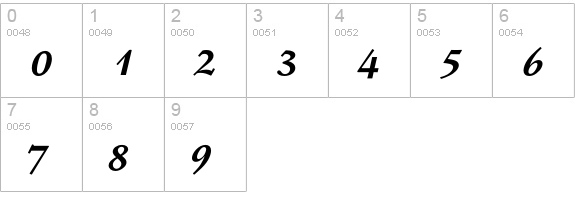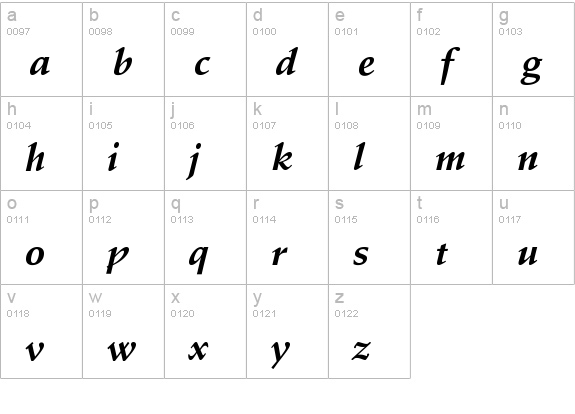
SchneidlerEF-BoldItalic Font Details
SchneidlerEF-BoldItalic is a stunning and bold typeface that exudes elegance and sophistication. With its distinct slanted design, this font adds a touch of creativity and flair to any project. The SchneidlerEF-BoldItalic font is perfect for headlines, logos, and branding materials that require a strong and eye-catching presence. Its bold strokes and italicized style create a unique visual impact, making it the ideal choice for projects that demand attention. What sets the SchneidlerEF-BoldItalic font apart is not only its aesthetic appeal but also its versatility. It seamlessly blends traditional and modern elements, making it suitable for a wide range of design styles. From classic to contemporary, this font effortlessly adapts to any creative vision. One of the best things about the SchneidlerEF-BoldItalic font is that it is available for free. Yes, you heard it right - this exceptional typeface can be freely downloaded at FontsMarket.com. This means that you can enhance your designs without having to worry about any additional costs. So, whether you're a professional designer looking to elevate your work or an enthusiast wanting to add a touch of elegance to personal projects, the SchneidlerEF-BoldItalic font is a must-have. Download it today from FontsMarket.com and experience the beauty and versatility of this remarkable typeface.